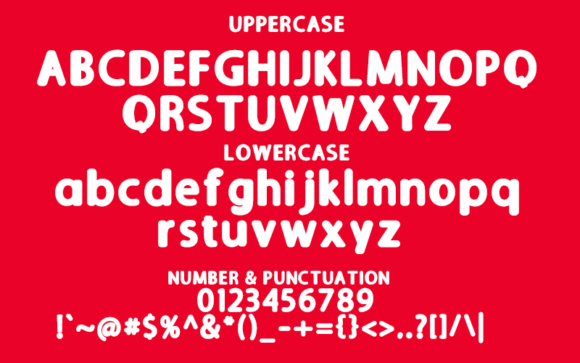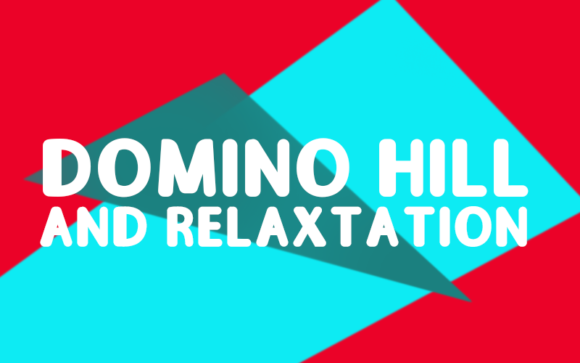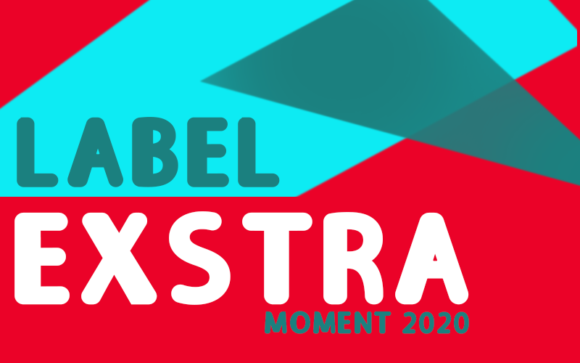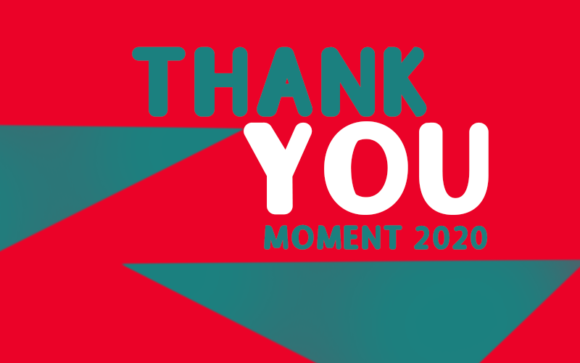
Discover the Unique Charm of Galileo Various Font
In the vast universe of typography, a new star has emerged, captivating the attention of designers and crafters alike. Galileo Various, a distinct and whimsical sans serif font, has been making waves with its unique blend of traditional influences and contemporary aesthetic. This versatile font is designed to add an exquisite, yet subtle touch to any design project, making it a must-have for creative enthusiasts.
The Genesis of Galileo Various
Galileo Various is the brainchild of a meticulous design process, aimed at creating a font that not only stands out but also complements a wide range of design needs. Its name, inspired by the great astronomer Galileo Galilei, reflects the font’s ability to explore new horizons in typography while maintaining a classic essence.
Distinct Characteristics
What sets Galileo Various apart is its unique blend of traditional and modern elements. The font boasts:
- Whimsical Touch: A playful edge that adds character to any text.
- Sans Serif Elegance: Clean lines and simplicity, making it perfect for contemporary designs.
- Versatility: Suitable for a wide range of projects, from digital media to print.
Design Philosophy
The design philosophy behind Galileo Various is centered around versatility and aesthetic appeal. The creators aimed to produce a font that could be both elegant and approachable, making it suitable for various applications, including:
- Branding: Adding a unique personality to logos and brand names.
- Web Design: Enhancing user experience with its readability and charm.
- Packaging: Elevating product packaging with a distinctive look.
- Advertising: Capturing attention with its whimsical yet professional appearance.
Why Choose Galileo Various?
Galileo Various offers several advantages that make it a preferred choice among designers:
- Unique Aesthetic: Offers a fresh alternative to traditional sans serif fonts.
- High Readability: Ensures that messages are conveyed clearly and effectively.
- Customization: Comes with various weights and styles, allowing for flexible design choices.
Tips for Using Galileo Various
To maximize the potential of Galileo Various, consider the following tips:
- Mix and Match: Combine different weights for hierarchical effects.
- Color Play: Experiment with color to enhance the whimsical nature of the font.
- Pairing: Pair with serif fonts for a classic contrast or with other sans serifs for a modern, layered look.
Galileo Various is more than just a font; it’s a design statement. Its unique blend of whimsy and sophistication makes it an invaluable tool for designers looking to add a touch of elegance and personality to their work. Whether you’re crafting a brand identity, designing a website, or creating engaging advertisements, Galileo Various offers the versatility and charm to make your project stand out. Explore the possibilities with Galileo Various and discover a new dimension of typographic excellence.